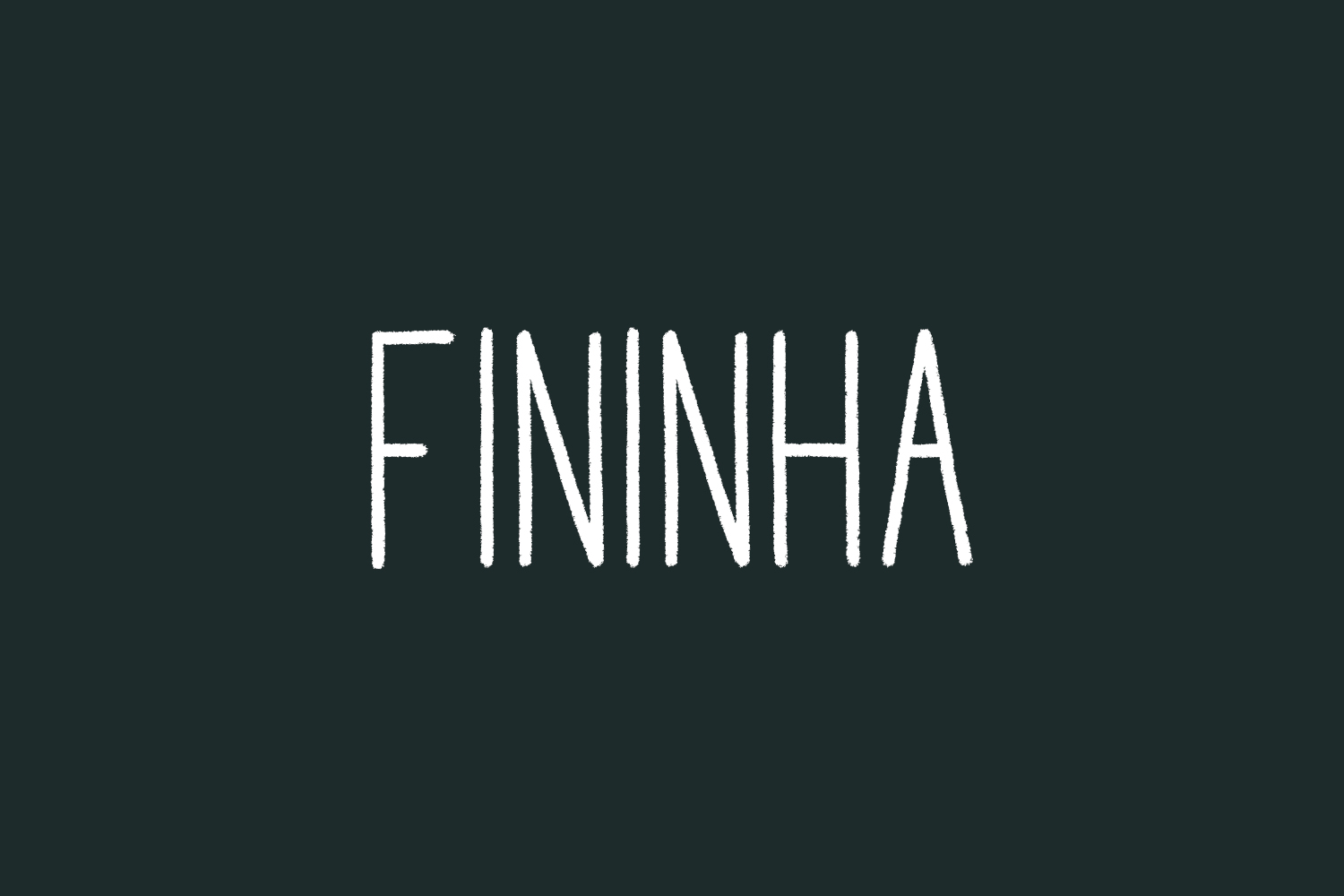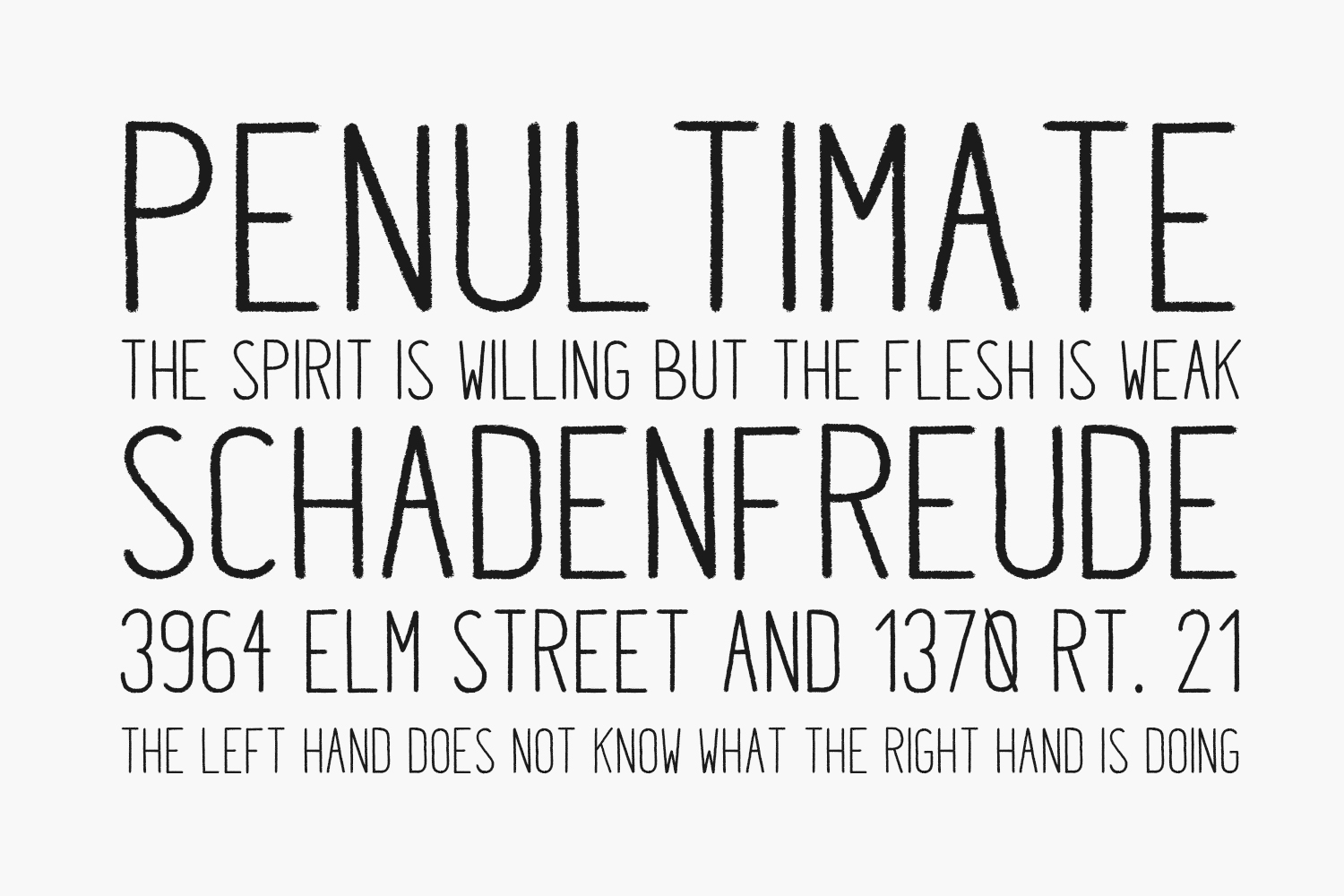
Fininha Free Font is a display font developed using lettering, digitization, and vectorization techniques. With 163 glyphs, including glyphs for the Spanish language, it draws inspiration from the common signage found in everyday life in Latin America. Featuring solely uppercase characters, the font combines a solid structure with gestural elements, such as irregular strokes and textures, that convey a sense of spontaneity. This combination of features can reflect the joy and simplicity of Latin American culture. Fininha Free Font is free for personal use only. Please purchase the full version for commercial use.